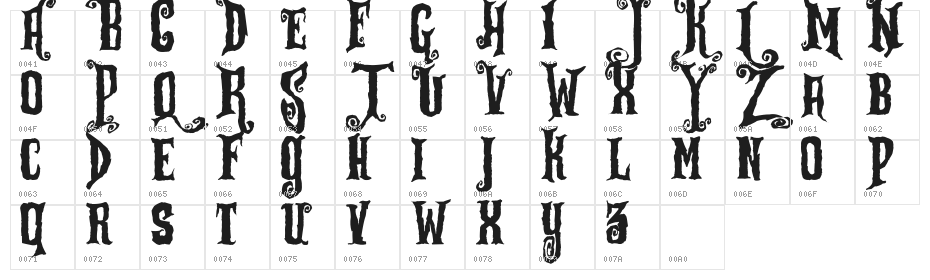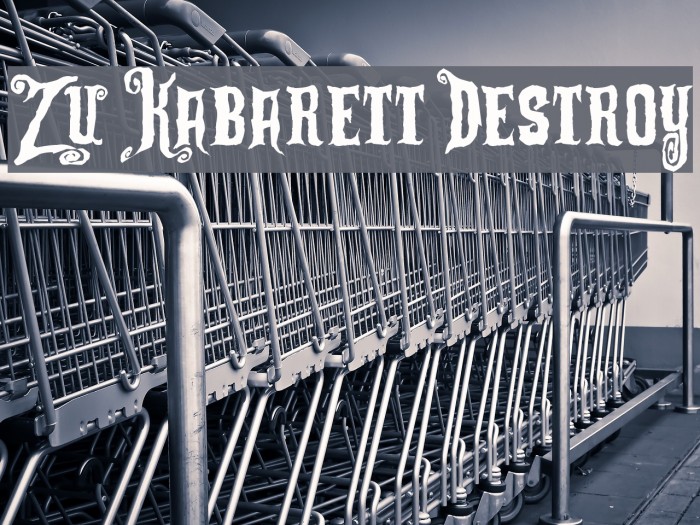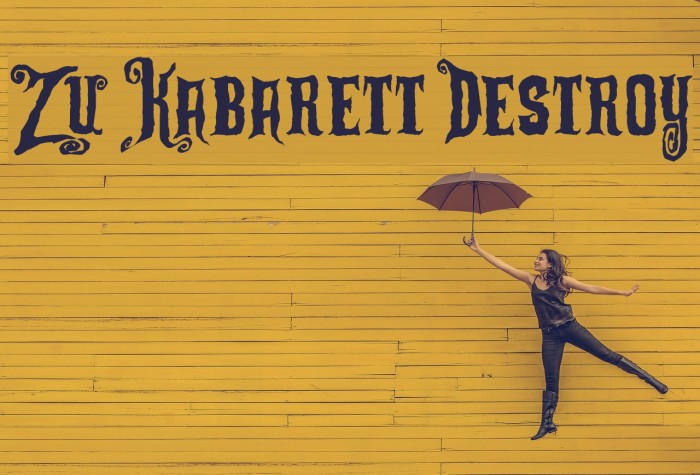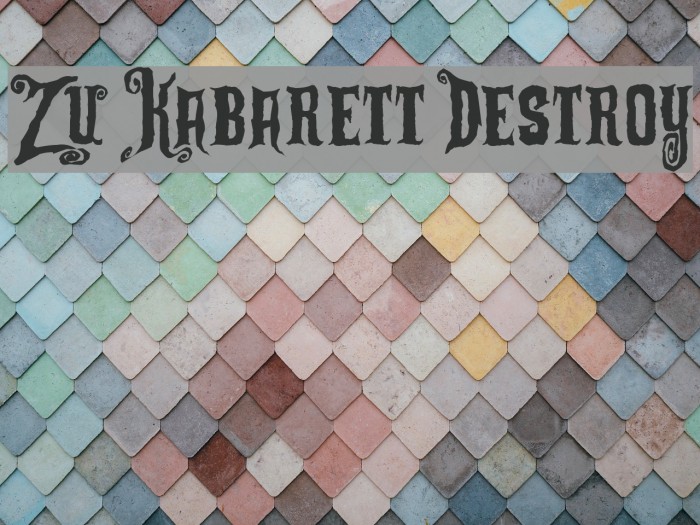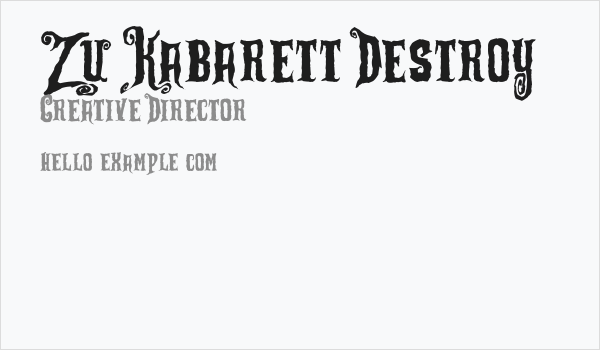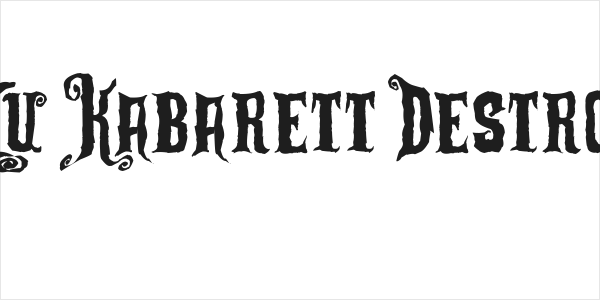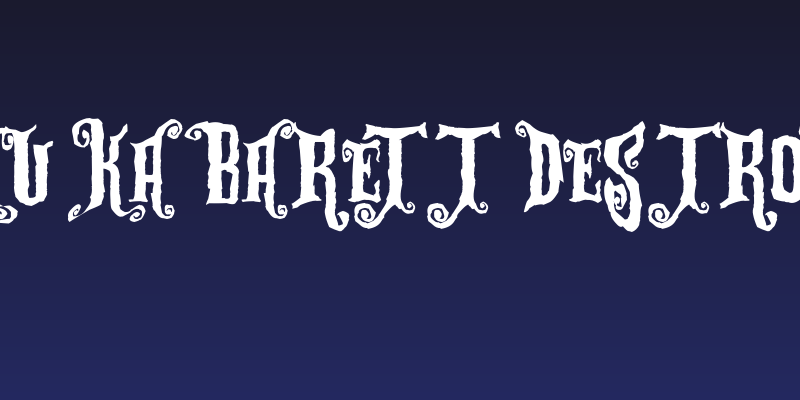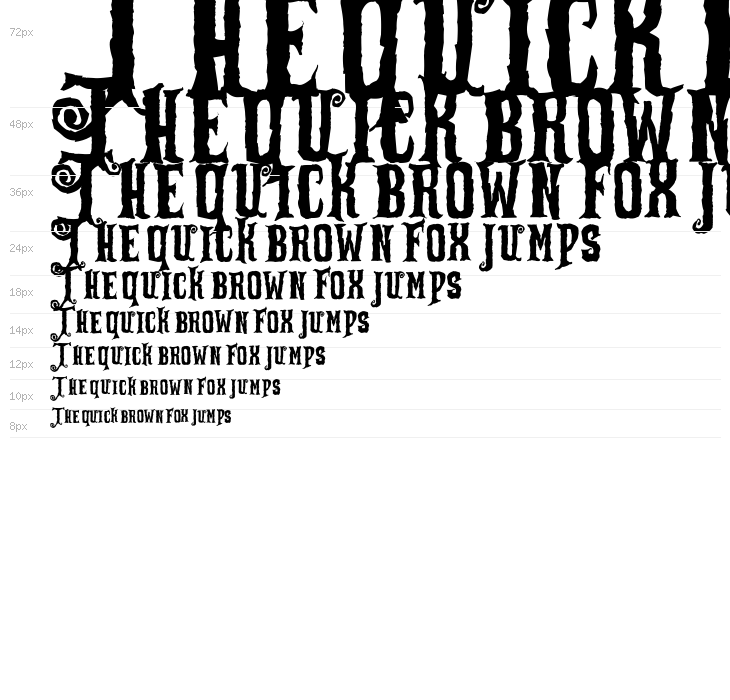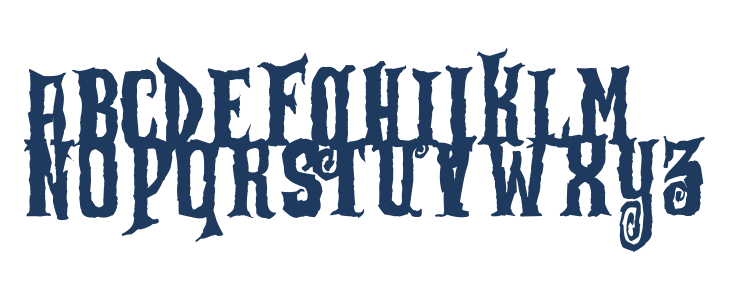
Zu Kabarett Destroy Font
Zu Kabarett Destroy Description
This font exudes a theatrical and whimsical vibe, characterized by its ornate and decorative letterforms. Each character is embellished with intricate swirls and curls, giving it a playful yet slightly gothic appearance. The uppercase letters are bold and commanding, while the lowercase letters maintain the same decorative flair. The numbers and special characters are equally stylized, ensuring a cohesive look across all glyphs. This font is perfect for projects that require a touch of drama and creativity, making it ideal for posters, invitations, and themed events.
| Proposed Projects | Ideal for theatrical posters, themed invitations, and creative event branding. |